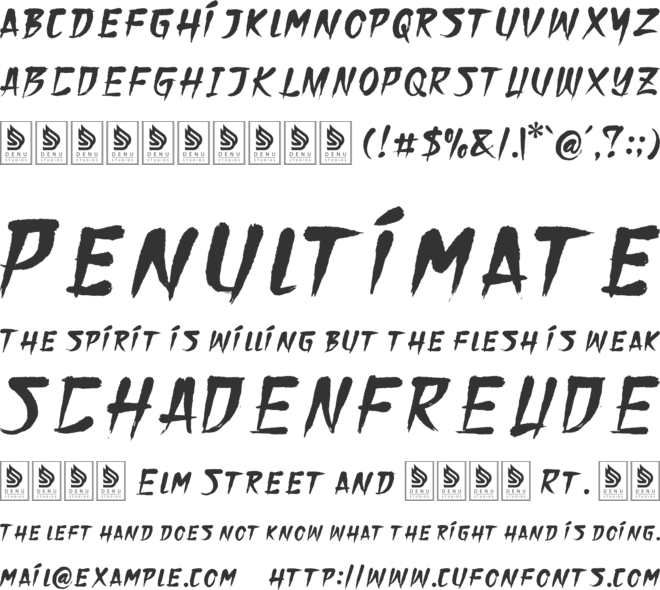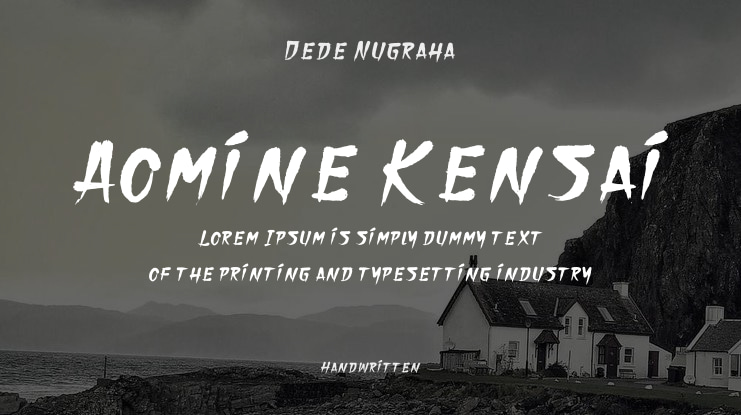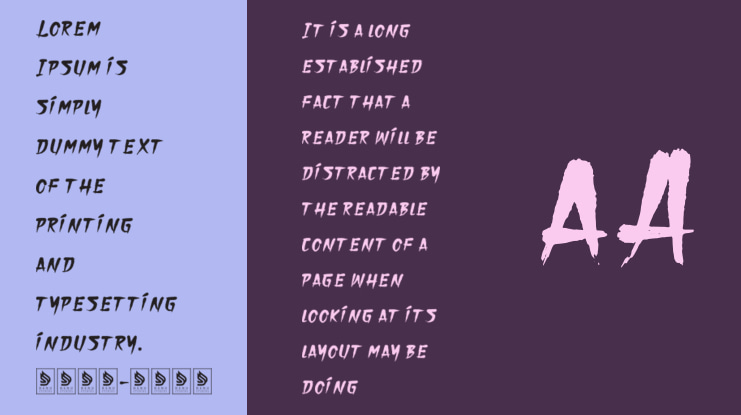
Aomine Kensai | Japanese Solid Brush product packaging, mugs, quotes, posters, shopping bags, t-shirts, book covers, name card, invitation cards, greeting cards, label, photography, watermark, special events, and all your other lovely projects that need a Japanese Solid Brush taste.